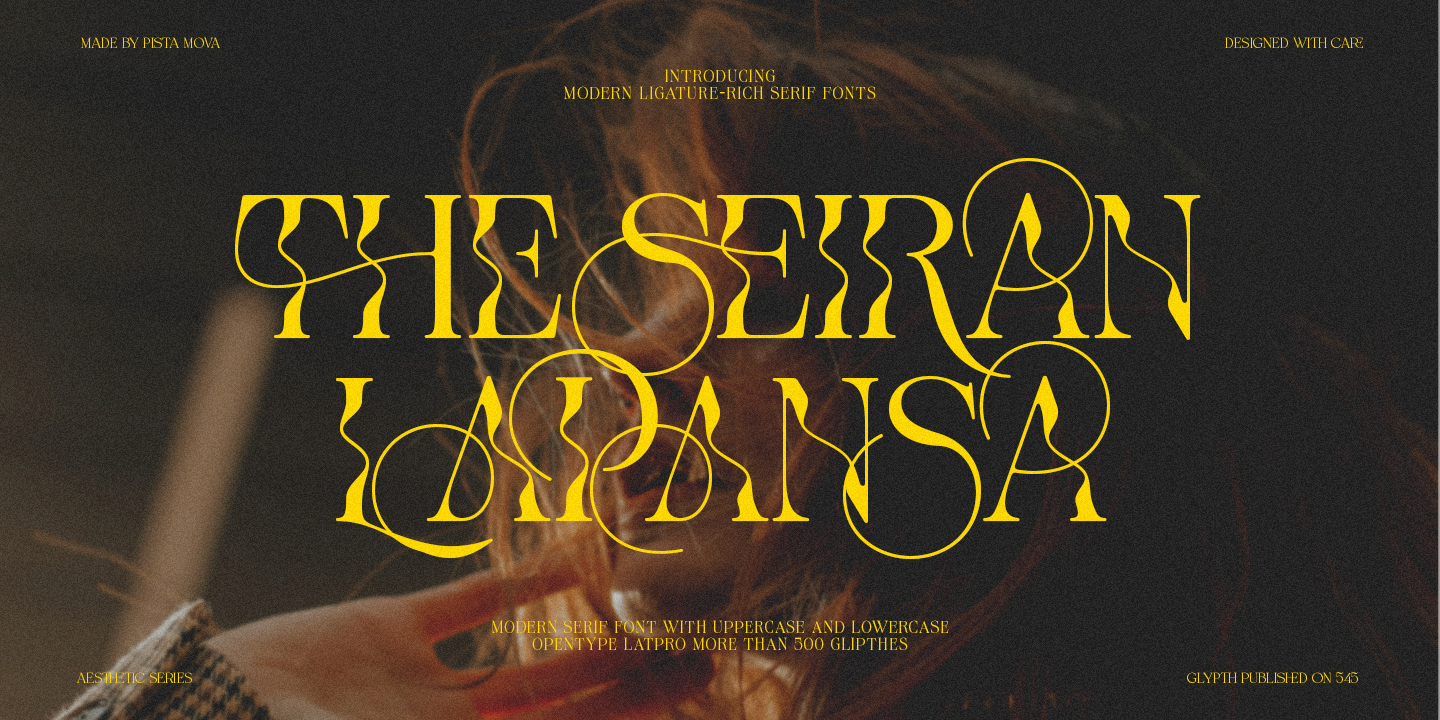
The Seiran Lapansa Font is perfect for ethereal fantasy literature, mystical storytelling publications, otherworldly art exhibitions, enchanted forest branding, celestial meditation centers, magical realm gaming interfaces, cosmic consciousness materials, transcendent spiritual retreats, divine poetry collections, and astral projection workshop graphics.
What makes The Seiran Lapansa Font so exciting is its transcendent embodiment of cosmic mystery and ethereal beauty through celestially inspired letterforms that capture the ineffable essence of otherworldly realms and the luminous magic that exists beyond the veil of ordinary perception. The font's design philosophy celebrates the intersection of earthly consciousness with divine realms, featuring flowing curves, astral proportions, and mystical details that mirror the gentle movement of aurora borealis, the whispered secrets of ancient starlight, and the transcendent beauty that emerges when human creativity touches the infinite cosmos. Each character seems to shimmer with celestial energy and otherworldly grace, creating a visual language that instantly communicates mystical depth, cosmic consciousness, and the profound beauty that awaits those who dare to explore the luminous territories beyond ordinary reality where magic and wonder reign supreme.
The The Seiran Lapansa Font family includes ethereal variations: Regular, Bold, Light, Medium, Condensed, Extended, Italic, Celestial, and Transcendent styles. Each variation maintains the font's characteristic otherworldly essence while offering different levels of mystical intensity and cosmic detail for various fantasy, spiritual, and transcendent design applications.
When searching for a typeface that embodies the essence of cosmic consciousness and ethereal mysticism, The Seiran Lapansa Font Free Download represents the perfect fusion of otherworldly beauty with typographic enchantment that elevates any project to new dimensions of mystical authenticity and celestial appeal.
The transcendently crafted letterforms of The Seiran Lapansa Font demonstrate superior attention to cosmic design principles, featuring ethereal proportions, mystical spacing, and celestial curves that ensure optimal readability while maintaining the font's distinctive otherworldly character. Its versatile design adapts seamlessly from intimate spiritual journals to expansive cosmic art installations.
Professional designers working on fantasy brands, spiritual organizations, and mystical consciousness projects particularly value the font's ability to convey cosmic authenticity, ethereal beauty, and transcendent appeal. The typeface works exceptionally well for projects targeting spiritual seekers, fantasy enthusiasts, and anyone seeking to project otherworldly positioning and mystical excellence.
The comprehensive OpenType features of The Seiran Lapansa Font include cosmic alternates, ethereal ligatures, and specialized transcendent characters that enable designers to create authentic mystical typography while maintaining the font's distinctive celestial character throughout all design elements and otherworldly applications.